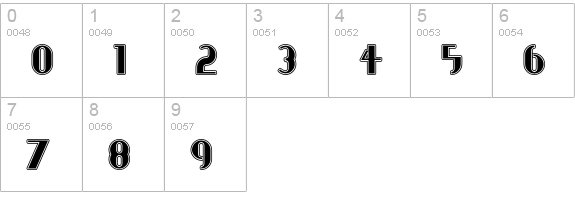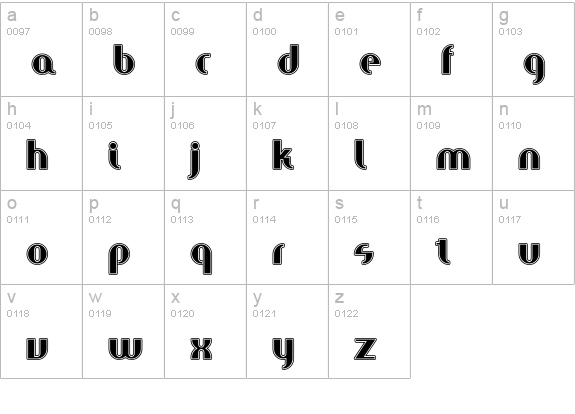
FastGirls-WiredForSupport Font Details
FastGirls-WiredForSupport font is a modern and dynamic typeface that exudes energy and confidence. Its sleek lines and sharp angles give off a bold and powerful vibe, making it perfect for projects that require a strong and impactful look. The font's unique design is sure to grab attention and make a statement. With its edgy and futuristic aesthetic, FastGirls-WiredForSupport font is ideal for branding, advertising, posters, and any other design where you want to stand out from the crowd. Its versatility allows it to be used for both headlines and body text, adding a touch of sophistication to any project. Best of all, FastGirls-WiredForSupport font is available for free download at FontsMarket.com. So why wait? Add this striking font to your collection today and let your creativity soar to new heights.